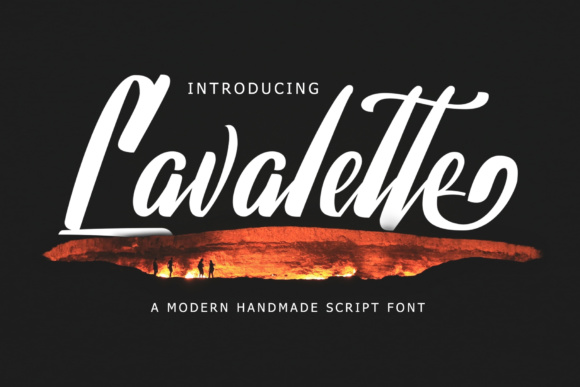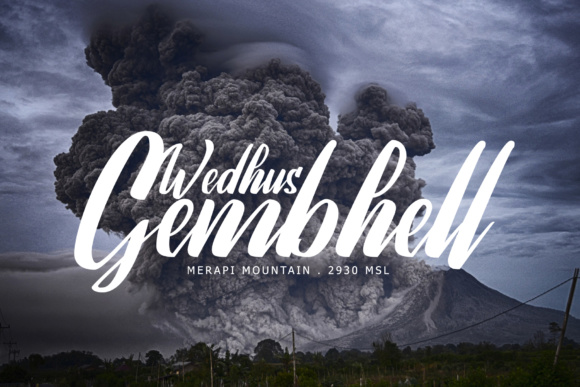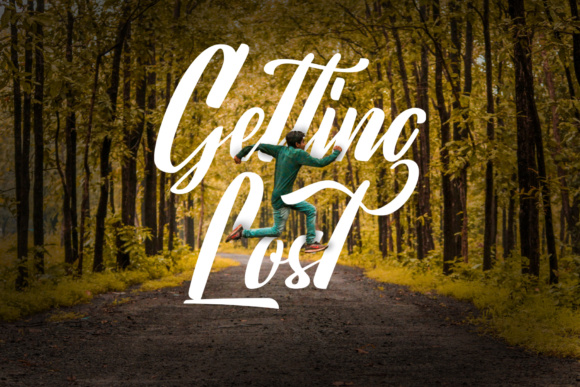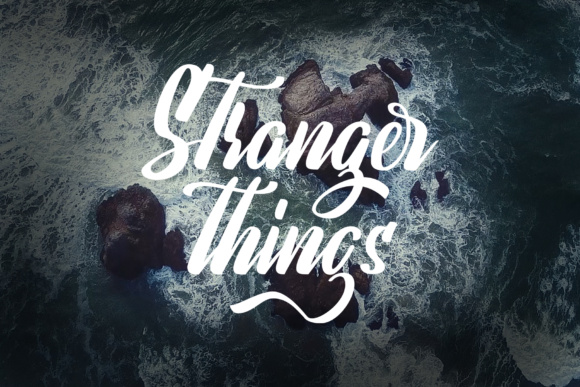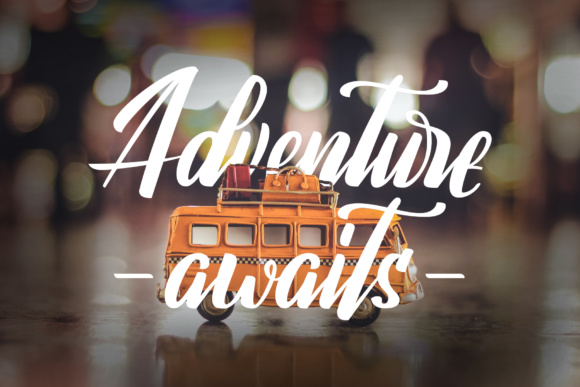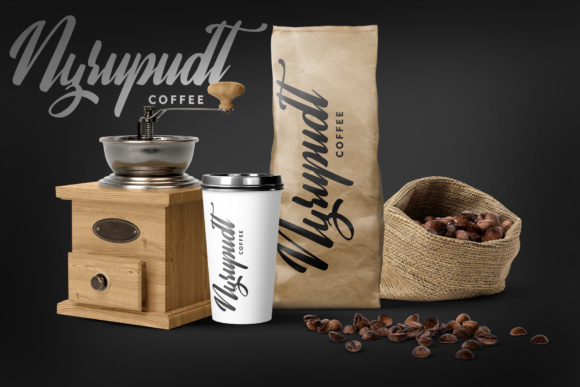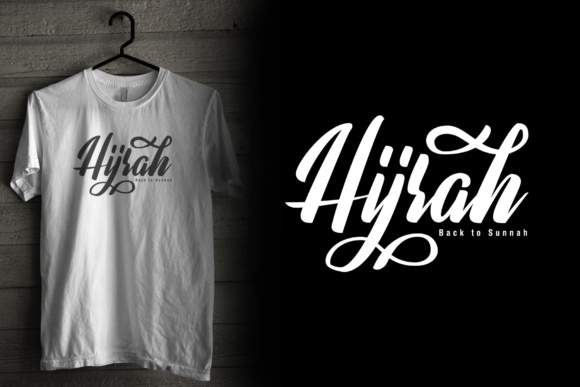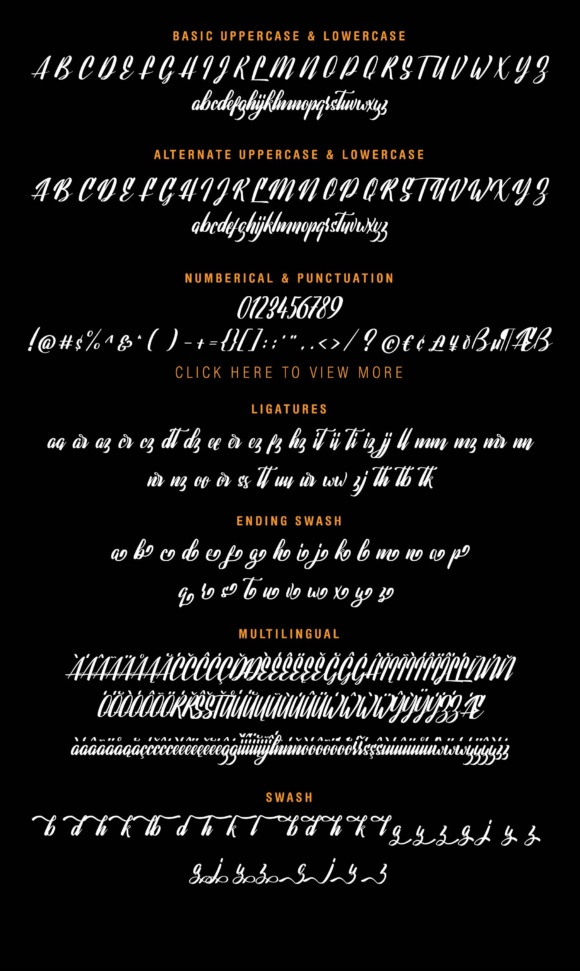
Lavalette Font
About Lavalette Font
Lavalette is a beautiful, painterly font that works well for a wide range of design styles! This is a great headline font, and works well to display bold and important messages and quotes.